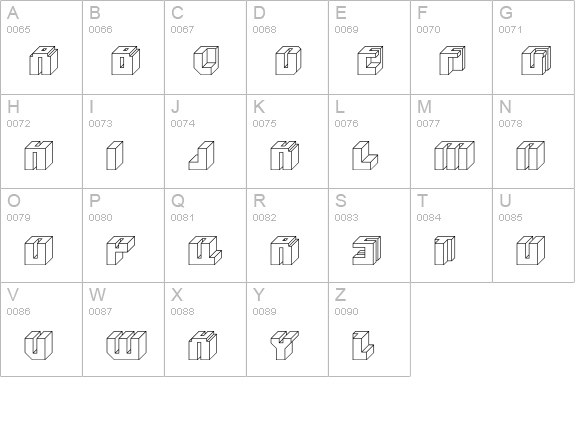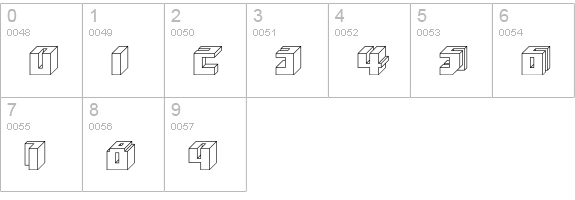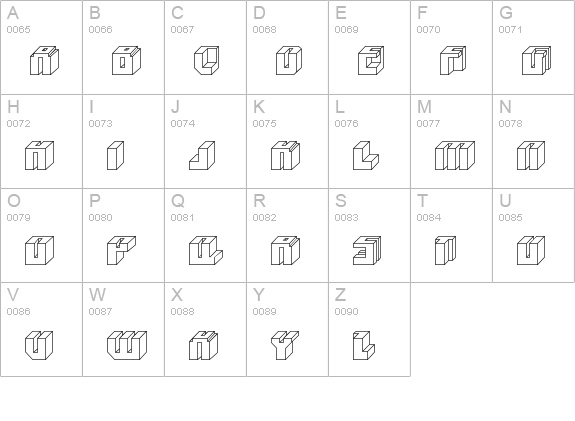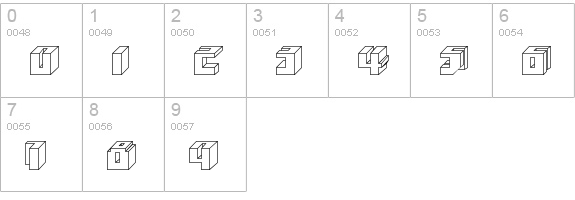
BlockedOutline Font Details
BlockedOutline font is a modern and sleek typeface that exudes a sense of strength and boldness. Its sharp edges and clean lines give it a distinctive look that is perfect for creating eye-catching designs. The font features a unique blocked outline style that adds a touch of sophistication to any project. Available for free download at FontsMarket.com, BlockedOutline font offers a wide range of characters and symbols, making it versatile for various design purposes. Whether you're working on a poster, logo, or website, this font will surely make a statement and grab attention. Don't miss out on the opportunity to enhance your projects with this stylish and impactful font.